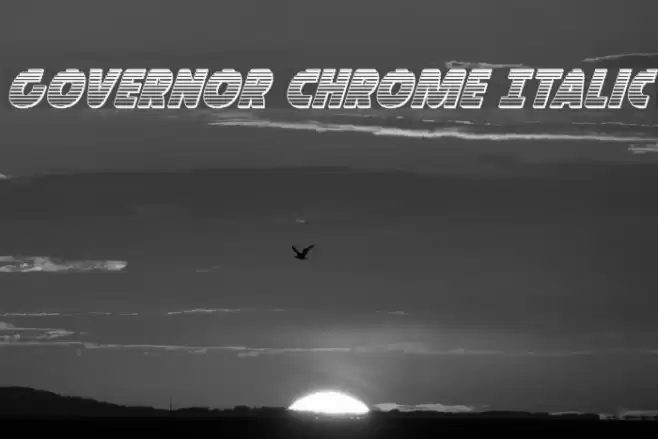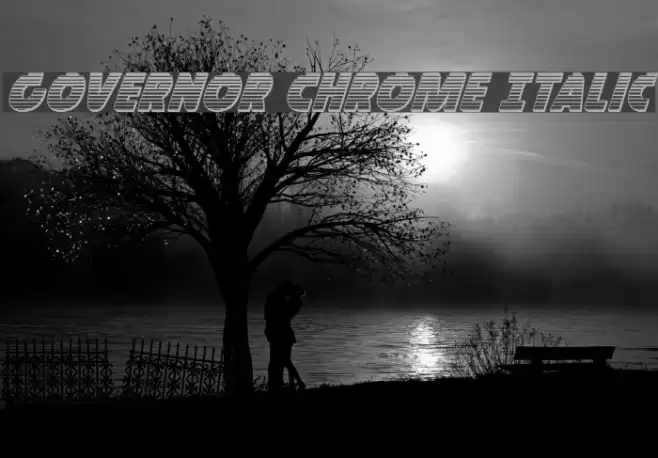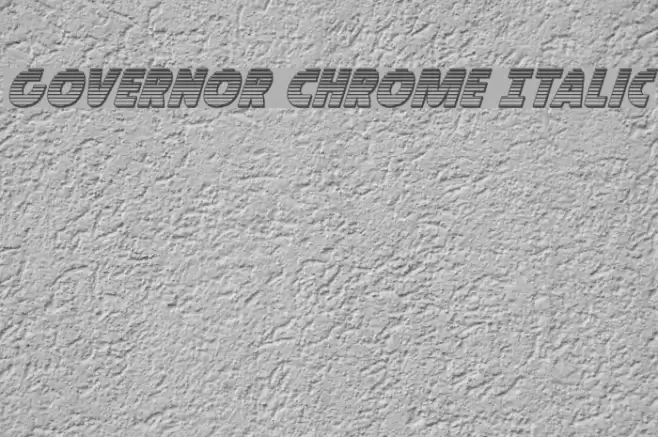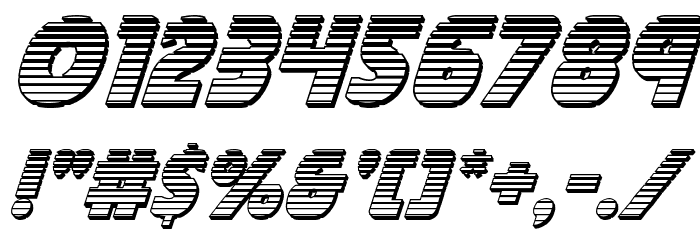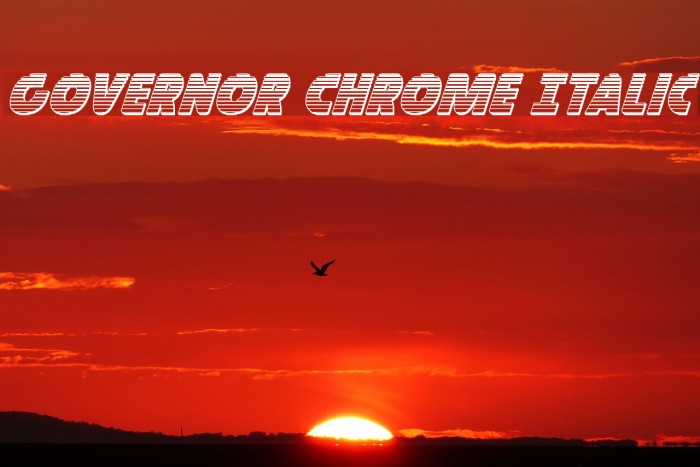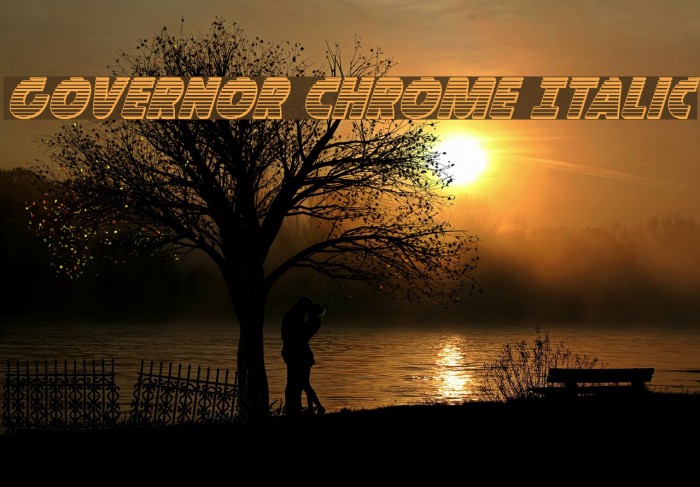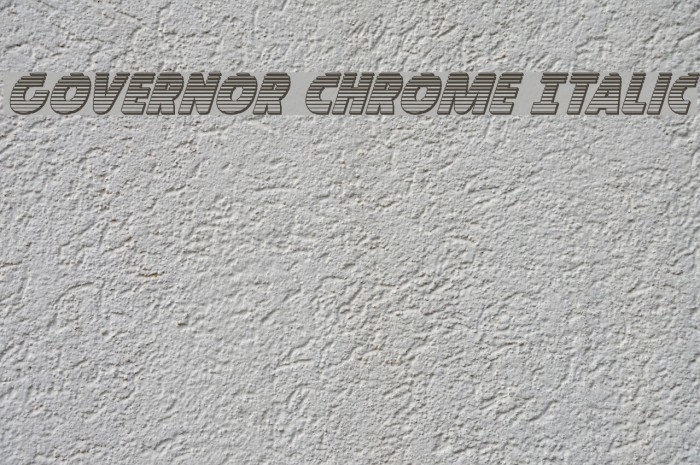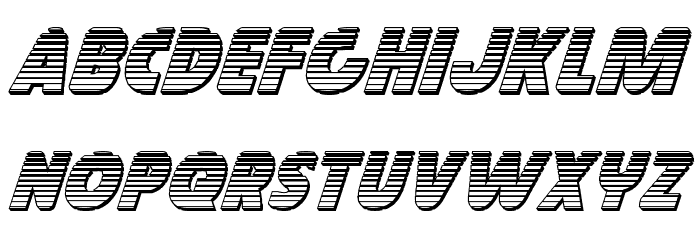
Governor Chrome Italic Font
Governor Chrome Italic Description
This font features a bold, italicized style with a distinct striped pattern running horizontally across each character. The design is modern and eye-catching, making it ideal for projects that require a strong visual impact. The letters are slightly condensed, enhancing the boldness and presence of the text. The contrast in stroke thickness is medium, providing a balanced look that is both dynamic and readable. The unique striped effect adds a decorative touch, setting it apart from more traditional fonts.
Bold, italicized font with a modern striped pattern from Sci-fi fonts.
- Proposed Projects: Ideal for headlines, posters, branding, and any design needing a bold statement.